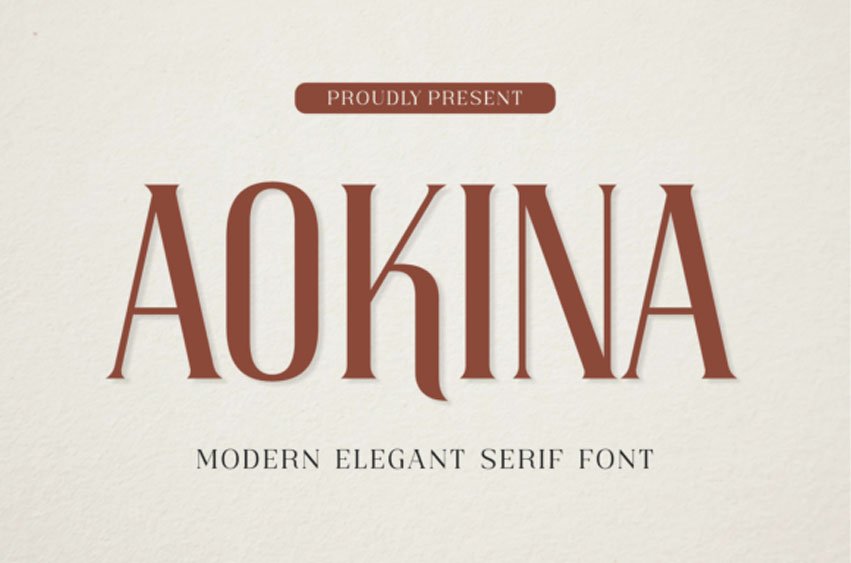
Aokina Font
Aokina Font is a refined and elegant serif font that blends timeless beauty with modern sophistication.
Its graceful curves and sharp serifs create a luxurious feel, perfect for branding, editorial designs, invitations, and logos. Aokina’s versatility ensures elegance and readability in any design project.